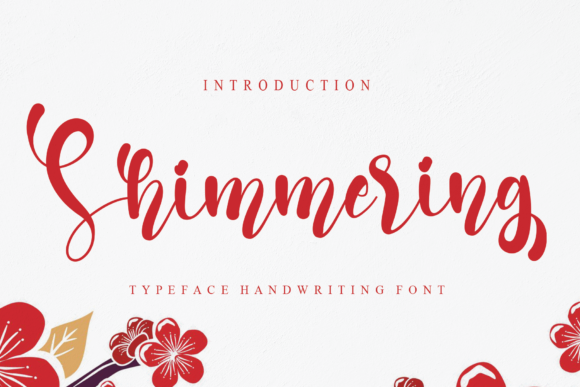
Shimmering Font
About Shimmering Font
Shimmering is a stunning script font that exudes elegance and charm with its lovely and round letterforms. This font adds a touch of sophistication and personalization to any design, making it perfect for special occasions like weddings, thank you cards, and other celebratory events.
The chic and round lettered style of Shimmering lends itself well to a variety of design projects. Whether you’re creating wedding invitations, greeting cards, or logos, this font will elevate the overall look and feel of your designs. Its unique and personalized style sets it apart, making it a great choice for adding a touch of luxury and refinement.
The versatility of Shimmering allows it to adapt to different design themes and aesthetics. Whether you’re going for a romantic and delicate look or a modern and minimalist vibe, Shimmering can effortlessly complement your design. Its round and flowing letterforms create a sense of elegance and grace, adding a touch of sophistication to your creations.
Shimmering is particularly well-suited for wedding-related designs. Its romantic and chic appearance makes it a perfect choice for wedding invitations, save-the-dates, and other stationery items. The rounded letterforms and smooth curves give the font a soft and dreamy quality, enhancing the overall romantic atmosphere of your designs.
When it comes to logos and branding, Shimmering adds a personal and memorable touch. Its unique style makes it stand out, allowing your brand to leave a lasting impression on your audience. Whether used as a standalone logo or as part of a larger branding system, Shimmering brings a touch of elegance and individuality to your visual identity.
In summary, Shimmering is a lovely, chic, and round lettered script font that enhances personalized designs. With its elegant and refined appearance, it adds a touch of sophistication to wedding invitations, thank you cards, logos, and various other design projects. Embrace the charm of Shimmering and let it elevate your creations to new heights.